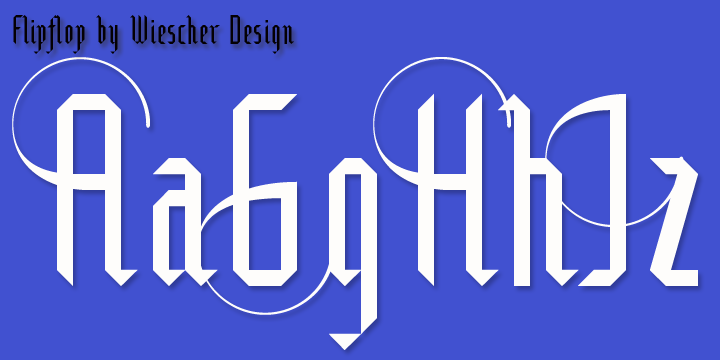
This font makes the impression to be a blackletter font (Fraktur) but it really only is little squares and triangles stuck together in a flip or flop way to form the glyphs. Only a few times did I have to leave this system – like for the degree or brève glyphs. In order to make this experiment somehow useful, I added a set with swings on the capitals. I think it all looks very good and can easily be used like a blackletter.